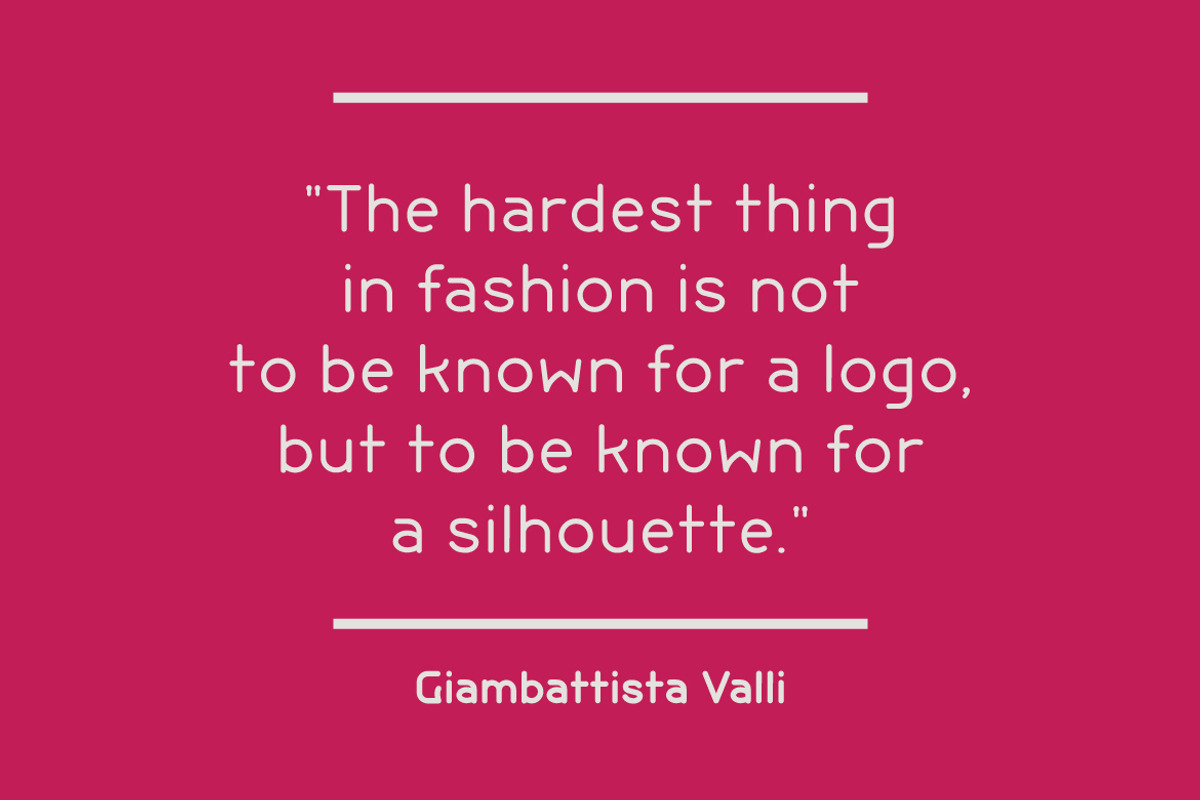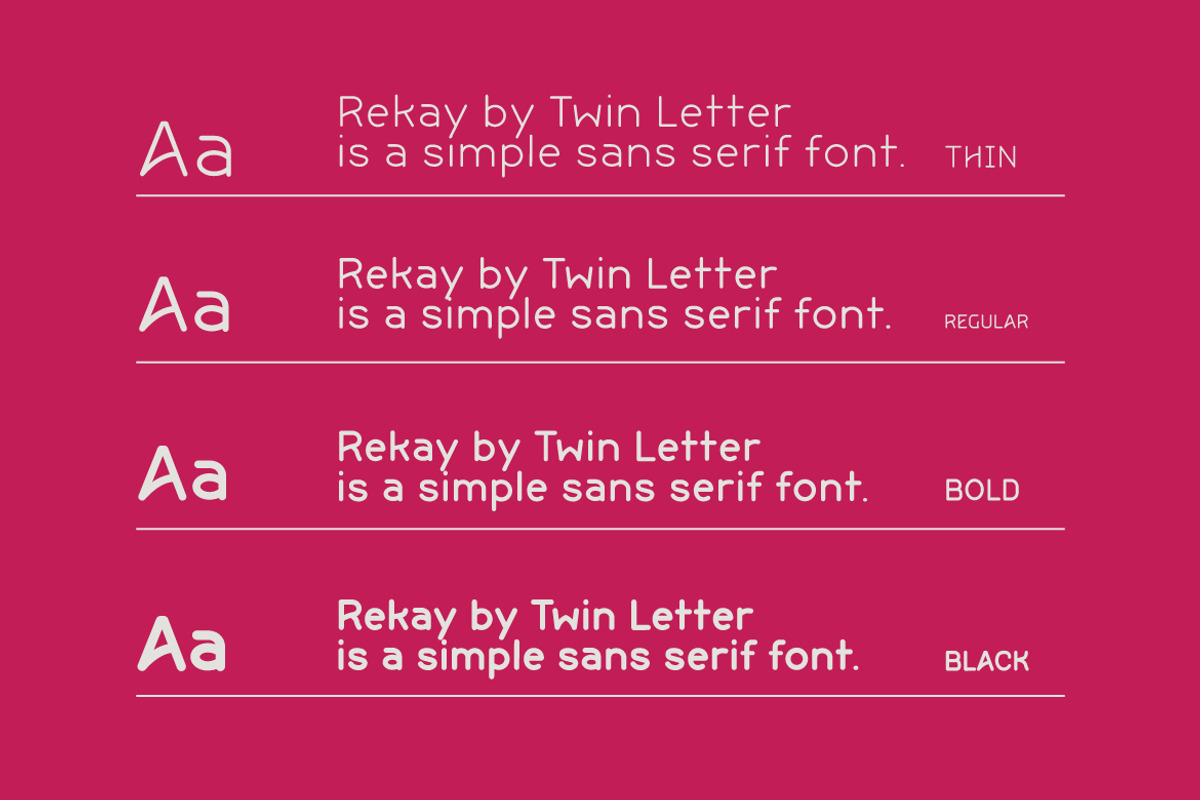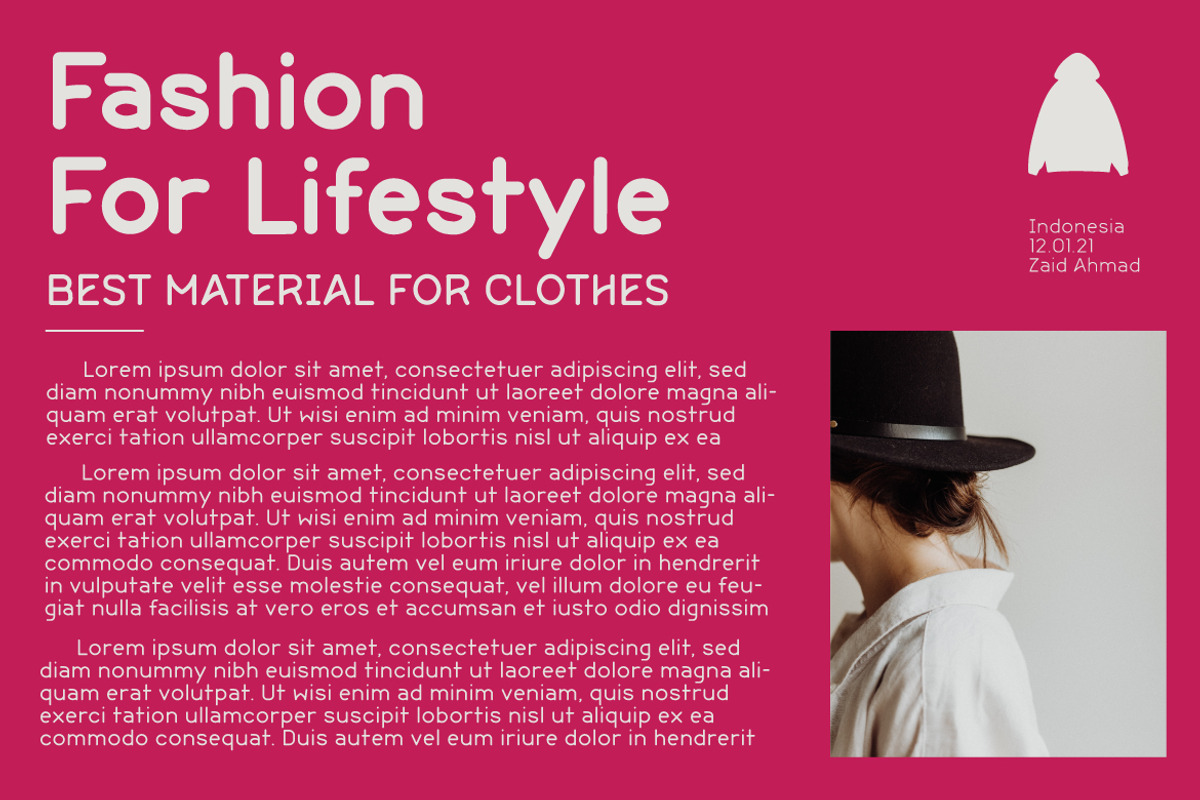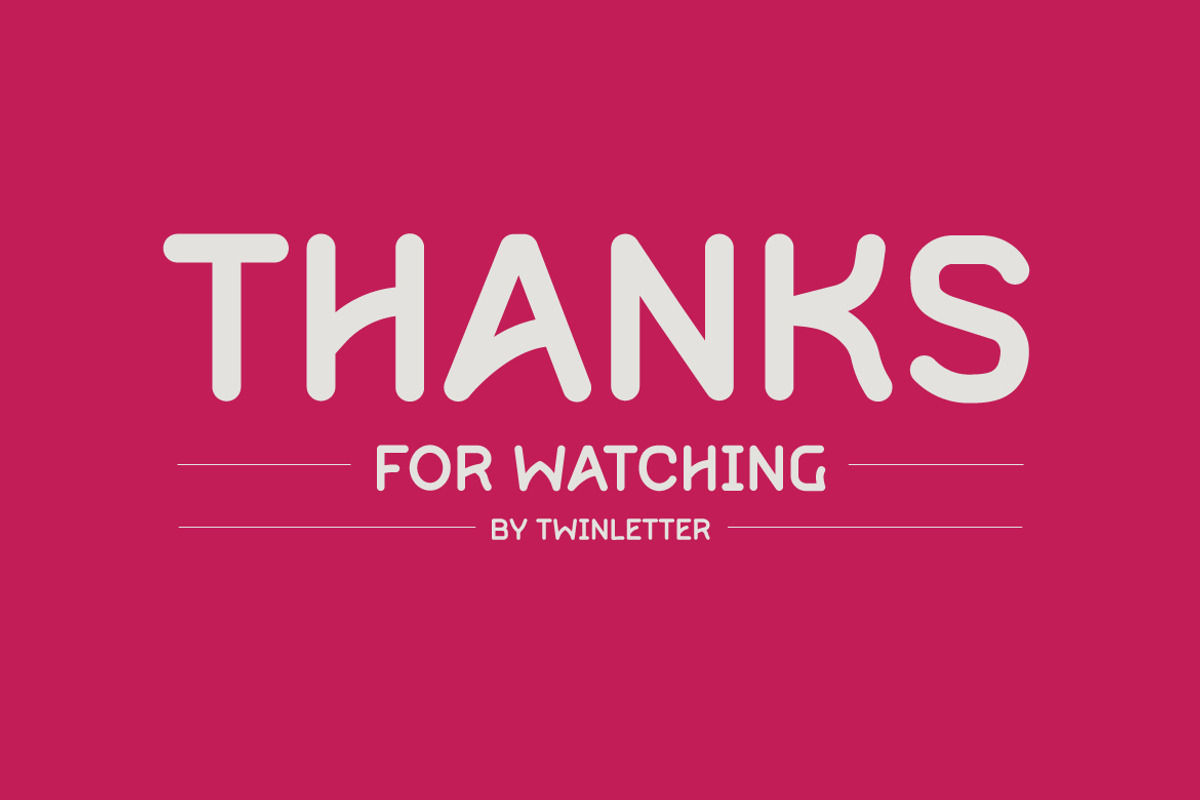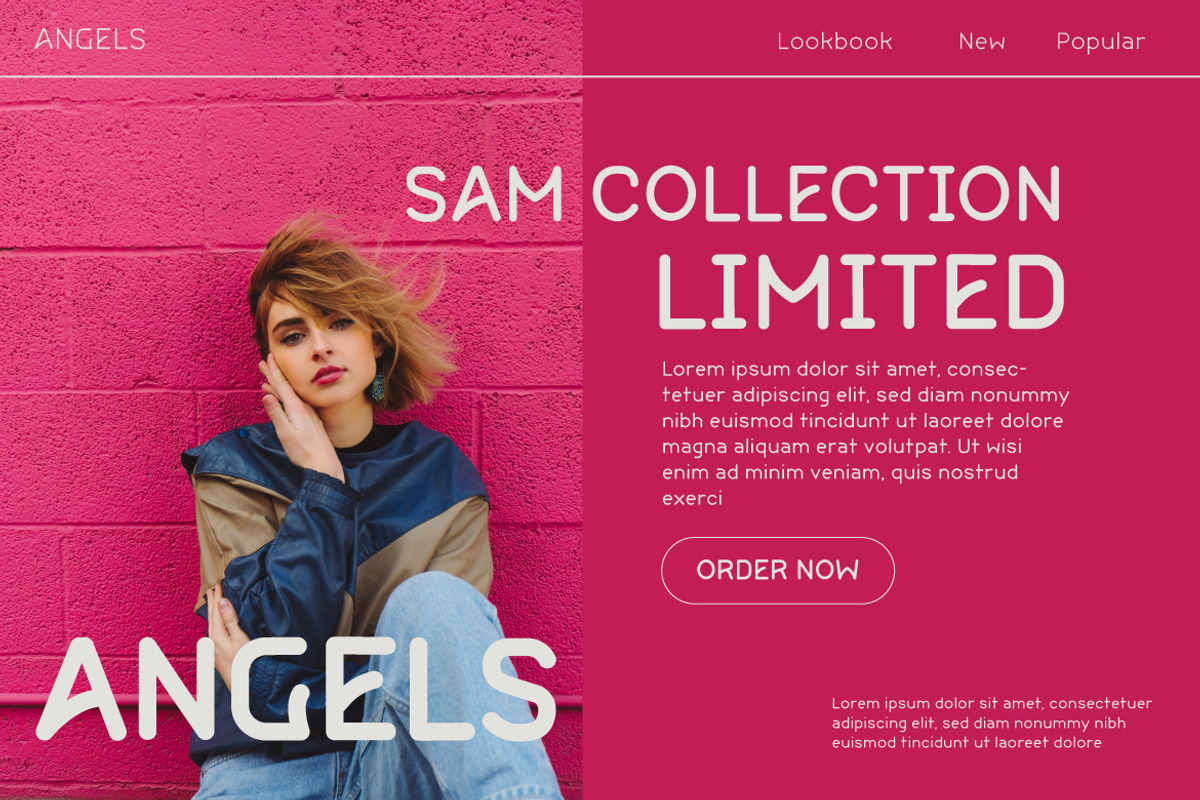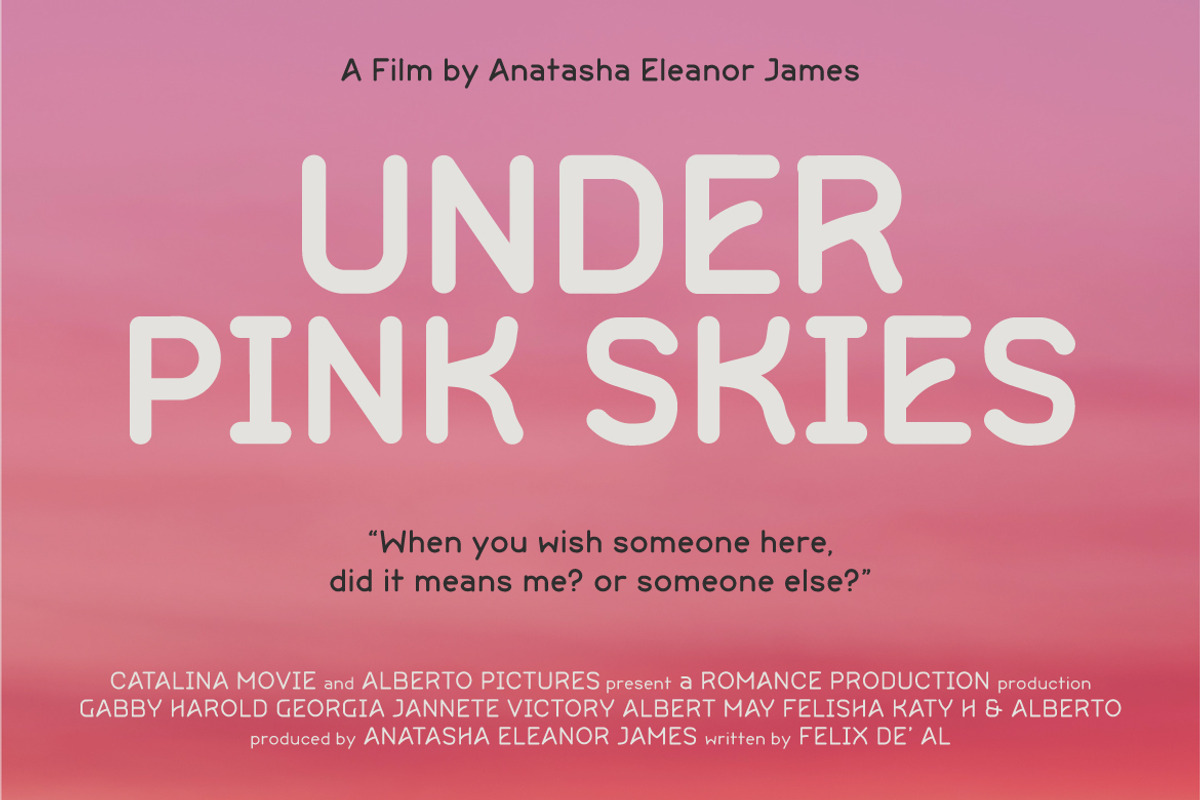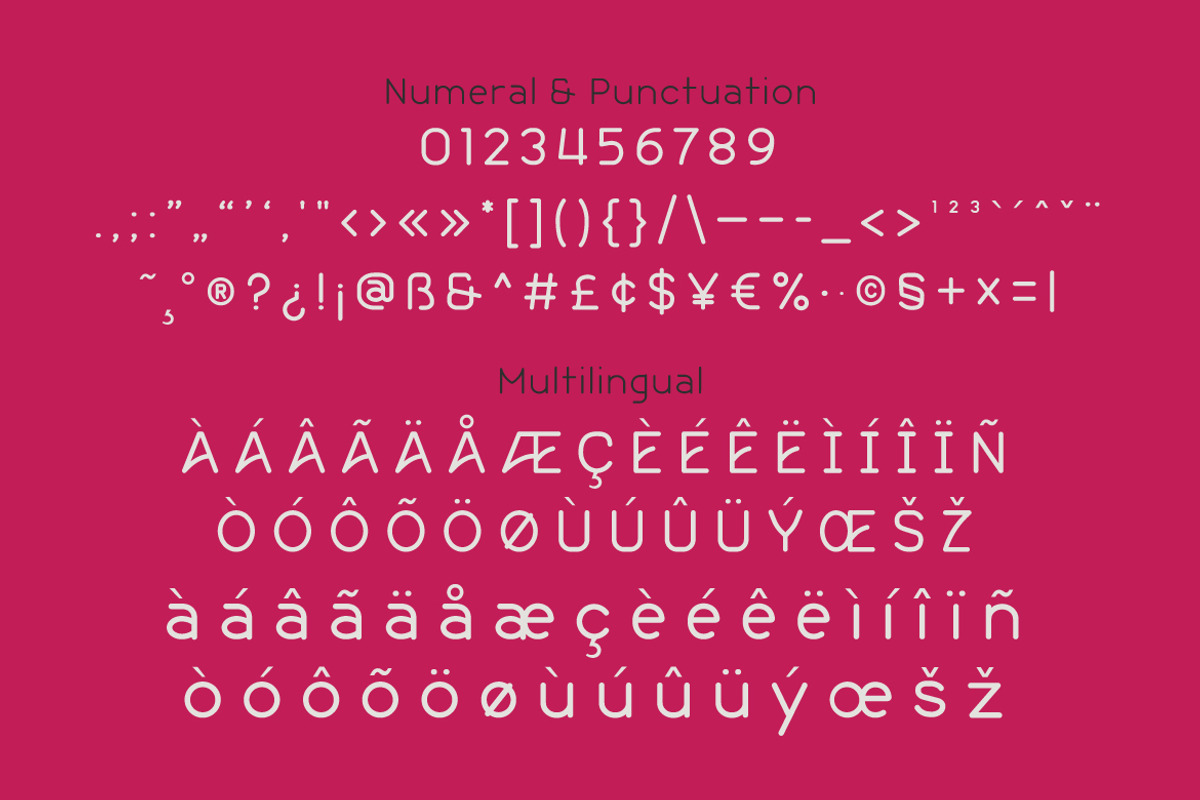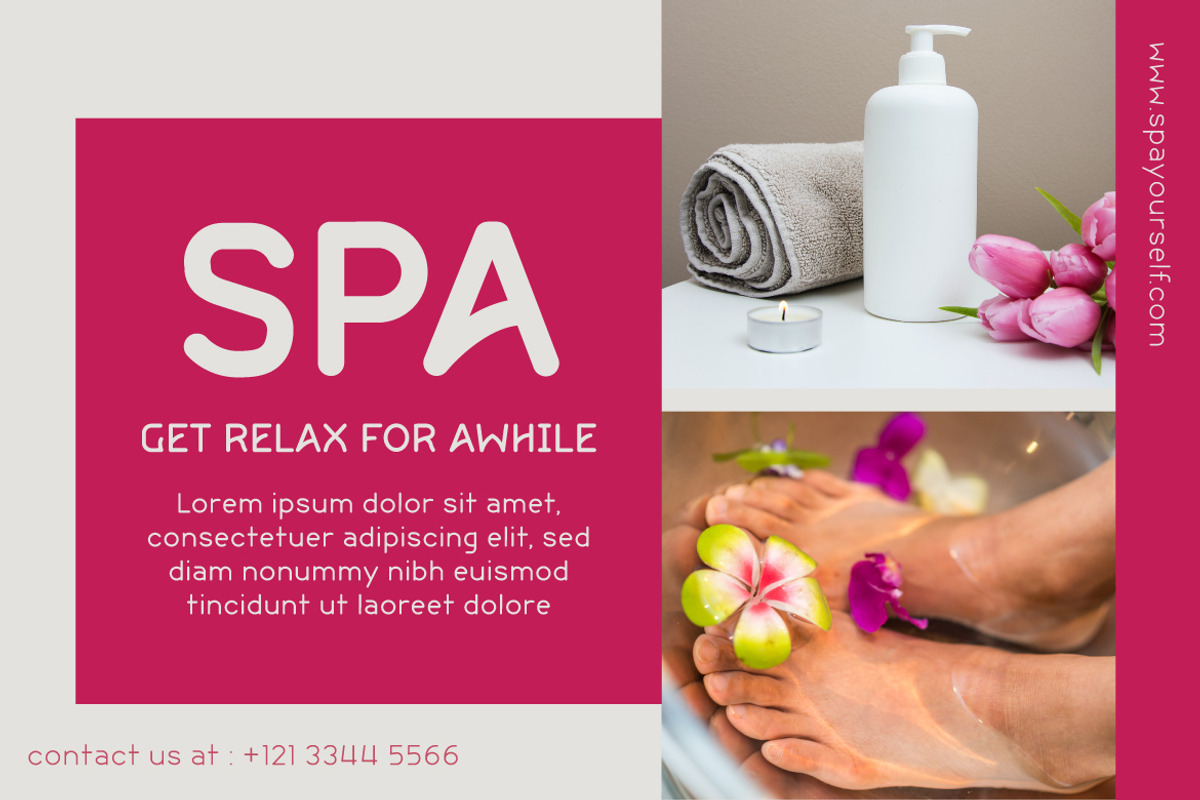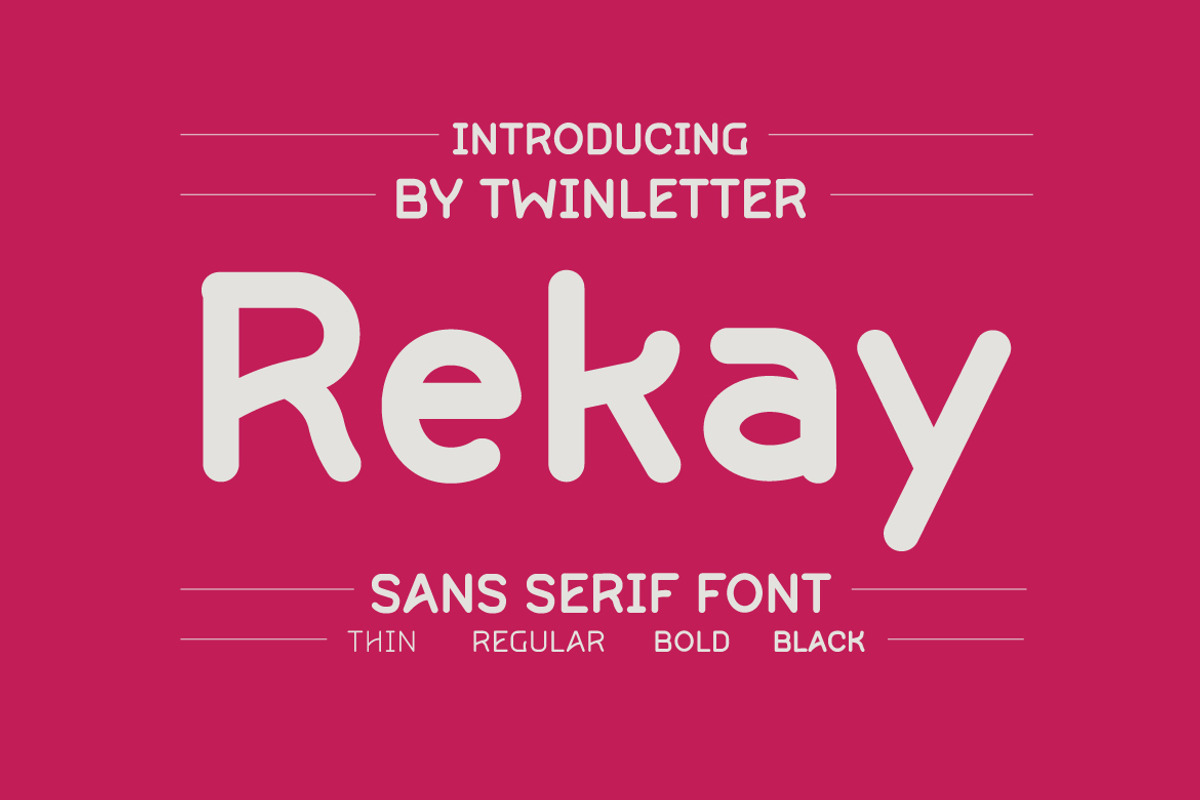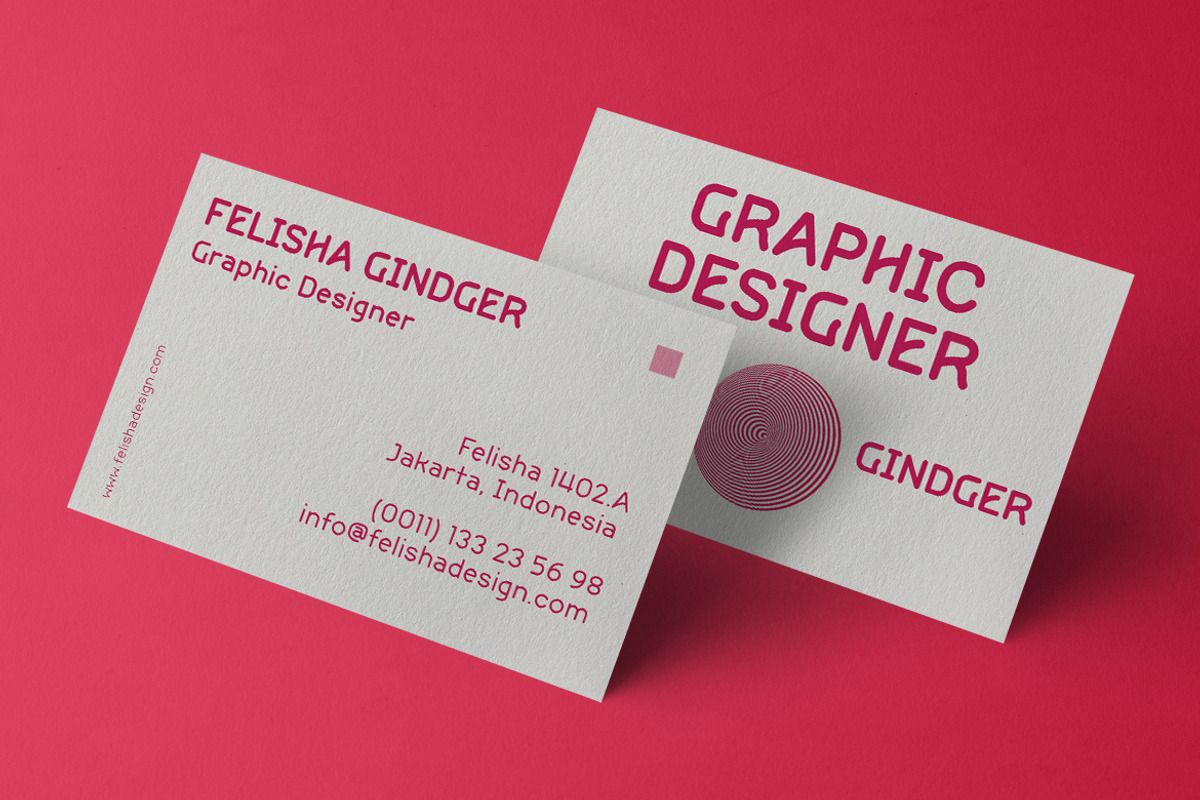
Rekay
Rekay is a sanserif font with a clean and minimalistic look. This lovely font will give your project a delightful appearance; everyone who sees it will think of it as professional and sophisticated, thanks to its attractive appearance. With this typeface, you can make your project stand out.
of course, your various design projects will be perfect and extraordinary if you use this font because this font is equipped with a font family, both for titles and subtitles and sentence text, start using our fonts for your extraordinary projects.